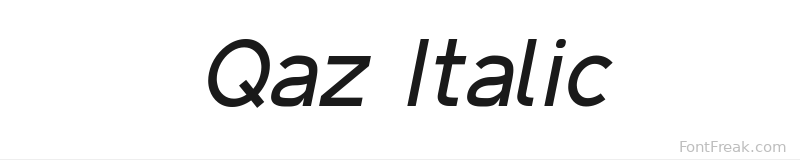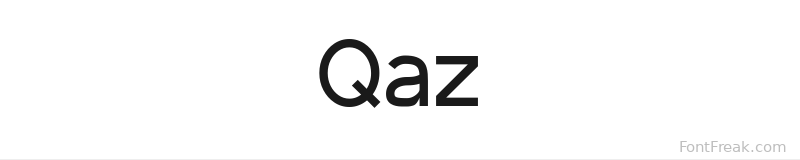
Qaz
Qaz Italic
The Qaz font by GGBot is a modern display typeface that exudes a unique flair, making it a versatile choice for various design projects. This font features an italic style that adds a dynamic touch to any text, characterized by its smooth curves and sharp angles. The stroke weight is balanced, offering a contemporary aesthetic that maintains legibility while allowing for creative expression. The spacing between characters is thoughtfully designed, ensuring readability without compromising on style.
Qaz is particularly suited for a range of applications, including wedding invitations, where its elegant design can evoke a sense of celebration. It also shines in movie posters, providing an eye-catching title treatment that draws viewers in. Additionally, restaurant menus can benefit from its distinct look, helping to present dishes in a way that reflects the establishment's unique identity. Content creators will find Qaz useful for social media graphics, where its modern appeal can enhance engagement and visual interest.
What sets the Qaz font apart is its ability to blend contemporary design with functional typography. The italic style not only adds a layer of sophistication but also allows for expressive typographic treatments that can transform ordinary text into something extraordinary. For those interested in enhancing their projects, the Qaz font free download is an opportunity to incorporate a standout typeface that is as stylish as it is versatile.